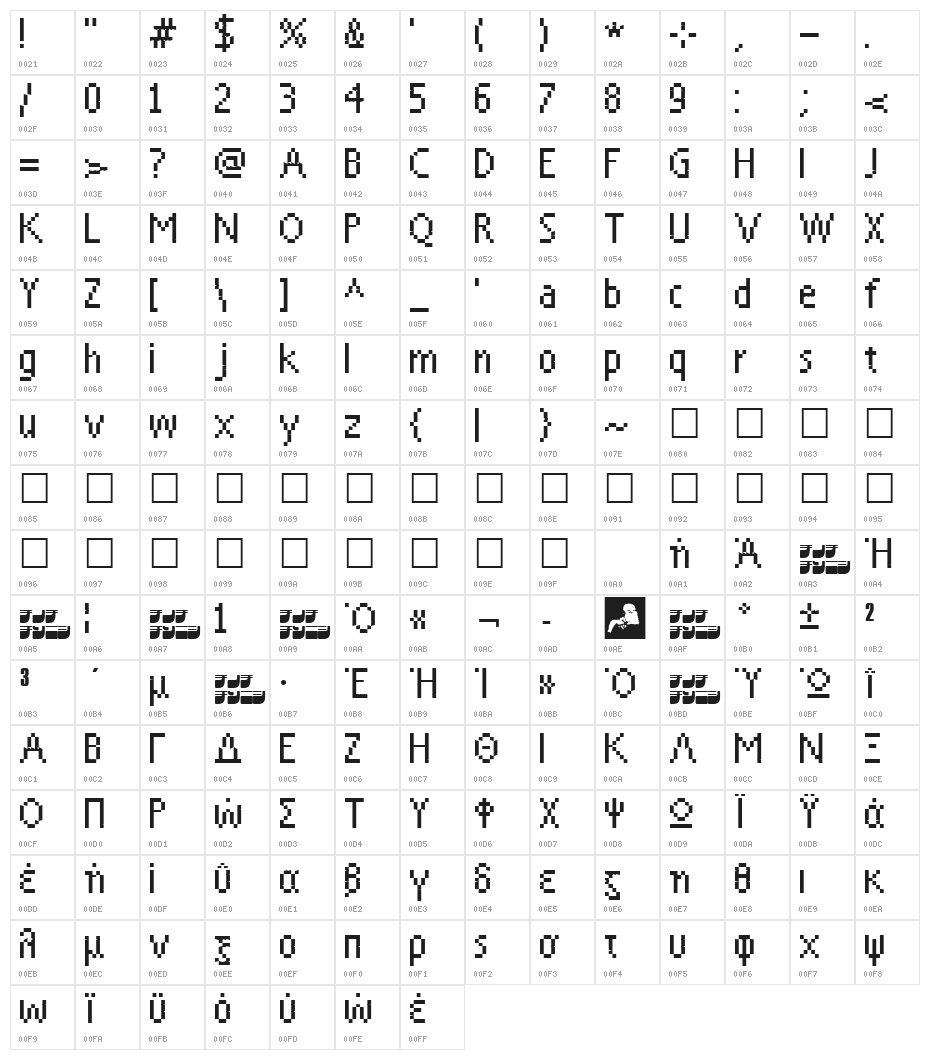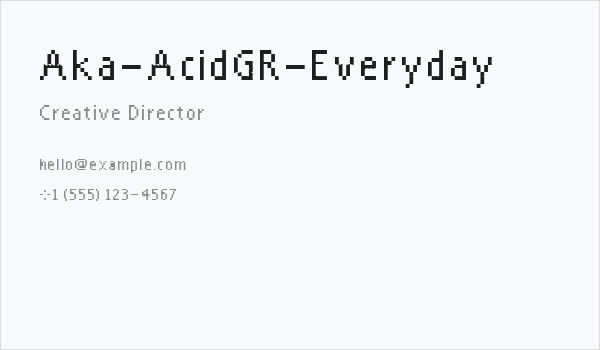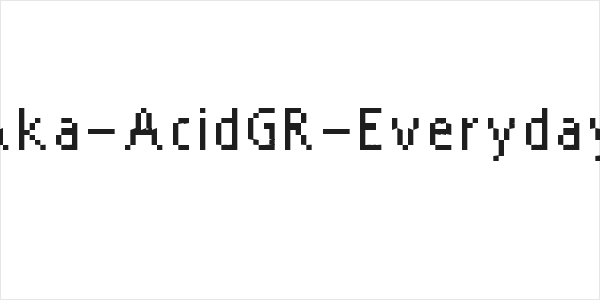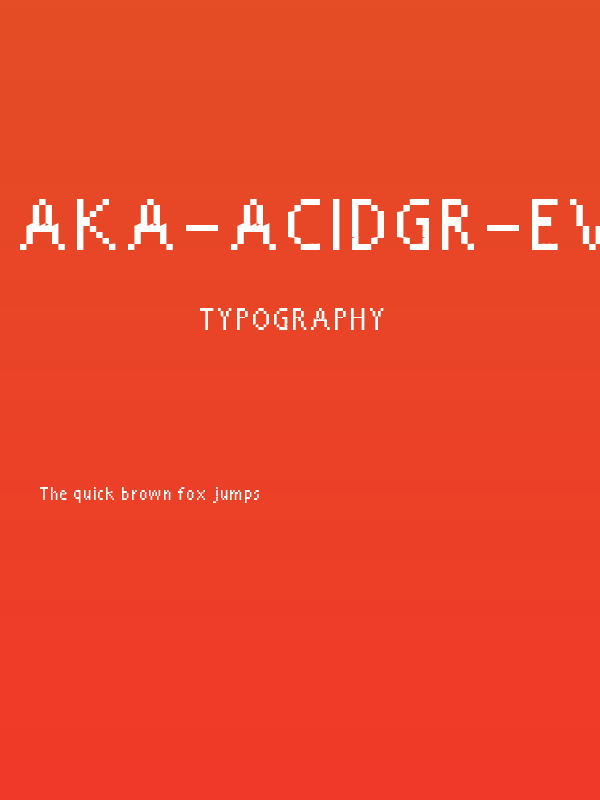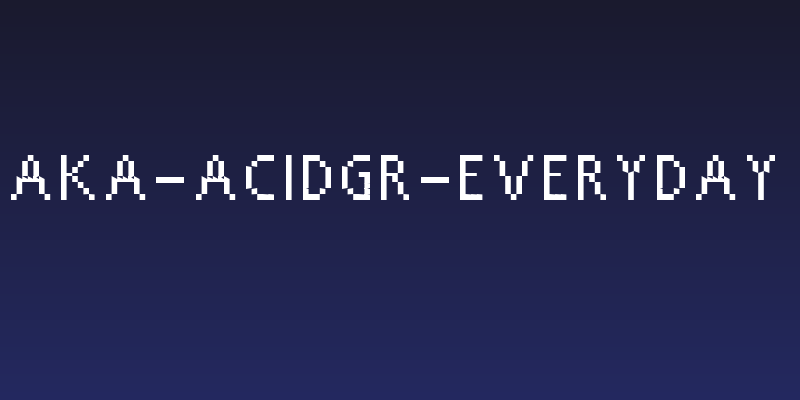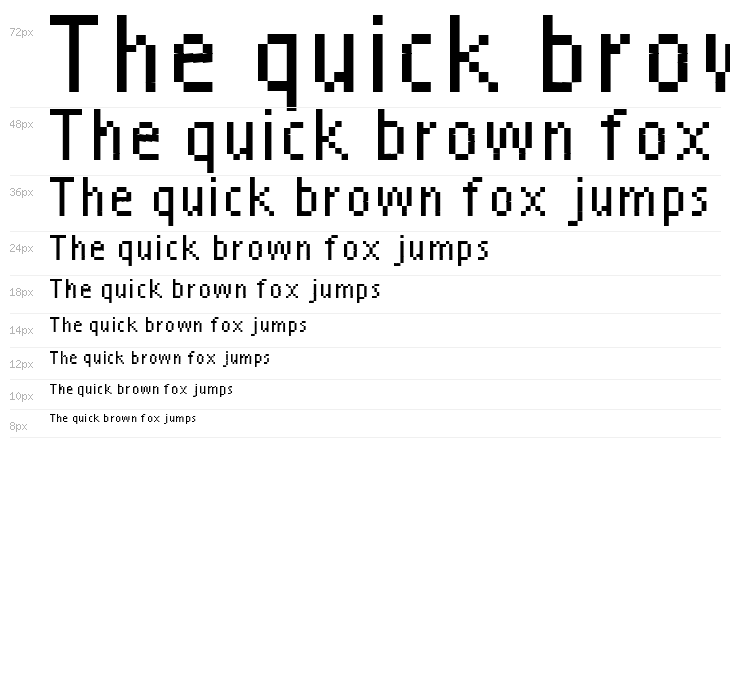
Aka-AcidGR-Everyday Font
Aka-AcidGR-Everyday Description
This font features a pixelated, grid-like design reminiscent of early digital displays and retro video games. Each character is constructed with a uniform grid pattern, giving it a distinctly blocky and geometric appearance. The uppercase and lowercase letters maintain a consistent height and width, contributing to a cohesive visual style. Numbers and special characters follow the same pixelated structure, ensuring uniformity across all glyphs. The font's simplicity and clarity make it highly legible, even at smaller sizes, while its nostalgic aesthetic evokes a sense of vintage digital technology.
| Use Case | Logos, Headlines, Digital displays |
| Proposed Projects | Ideal for retro video game graphics, digital-themed posters, and tech-related branding. |